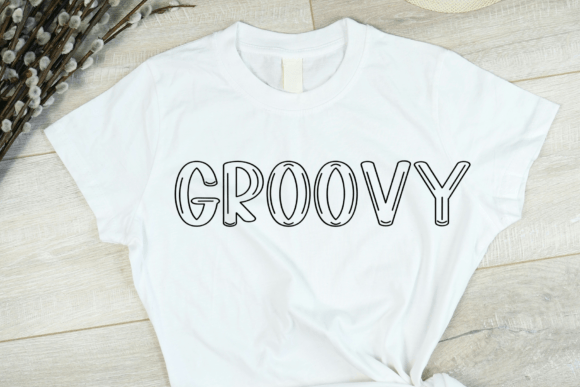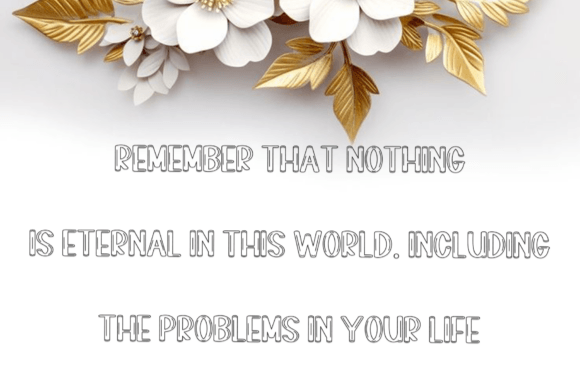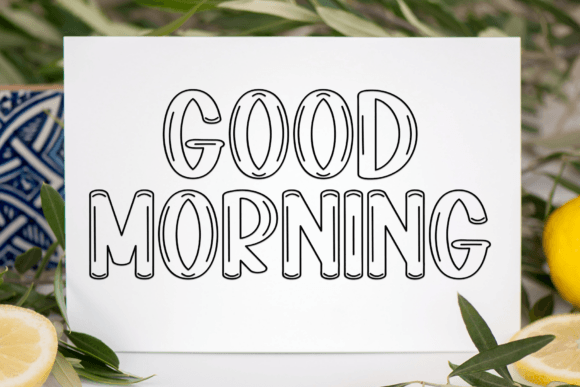
Bubble Wrap Font
Bubble Wrap is an exquisite handwritten font, masterfully designed to become a true favorite. It maintains its classy calligraphic influences while feeling contemporary and fresh. Fall in love with it and bring your projects to the highest levels!